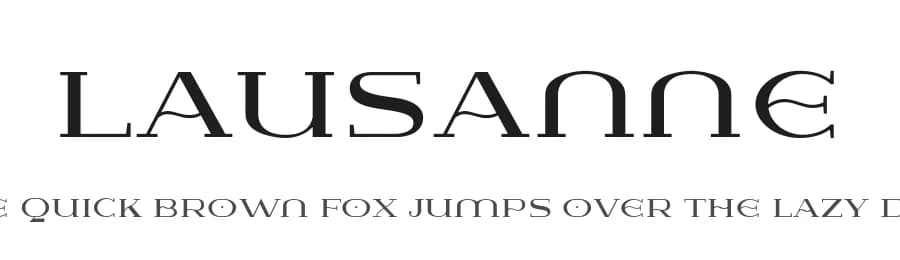
About Lausanne Font
Lausanne is a serif font designed by Neogrey Creative. It includes 369 glyphs, a regular weight, OTF (CFF) format, and 235 languages. Lausanne is free to download; check the license details on this page before commercial use. Serif fonts like Lausanne work best for body text, editorial layouts, book covers, and classic branding.
Lausanne Specifications
| Font Family | Lausanne |
| Full Name | Lausanne |
| Glyph Count | 369 glyphs |
| Designer | Ivan Filipov |
Lausanne ships with 3 OpenType features you can switch on in apps that support them (Illustrator, InDesign, Affinity, Figma, CSS font-feature-settings).
Lausanne supports 235 languages.
Lausanne Font is a versatile serif font that works for both headings and body text. Pair it with a contrasting sans-serif or slab serif font to add visual interest and a clear distinction between titles and body copy.